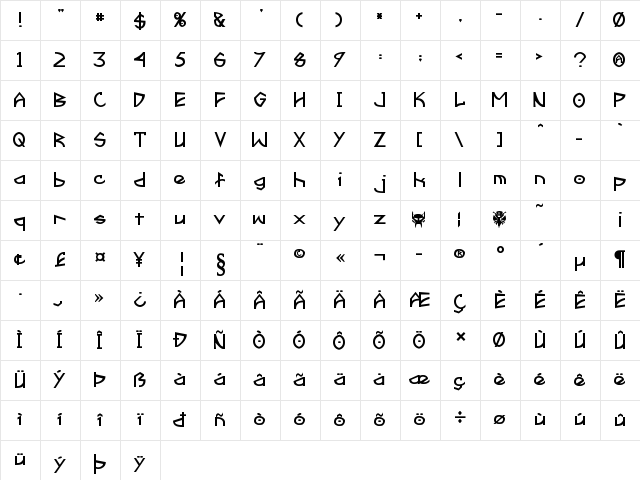
Fractyl Bold
Foundry: Pixel Sagas
Designer: Neale Davidson
Design Context for Fractyl
Fractyl is a composed and adaptable typeface that performs quietly and consistently across a wide range of design contexts. Its bold stroke weight gives it real presence on the page.